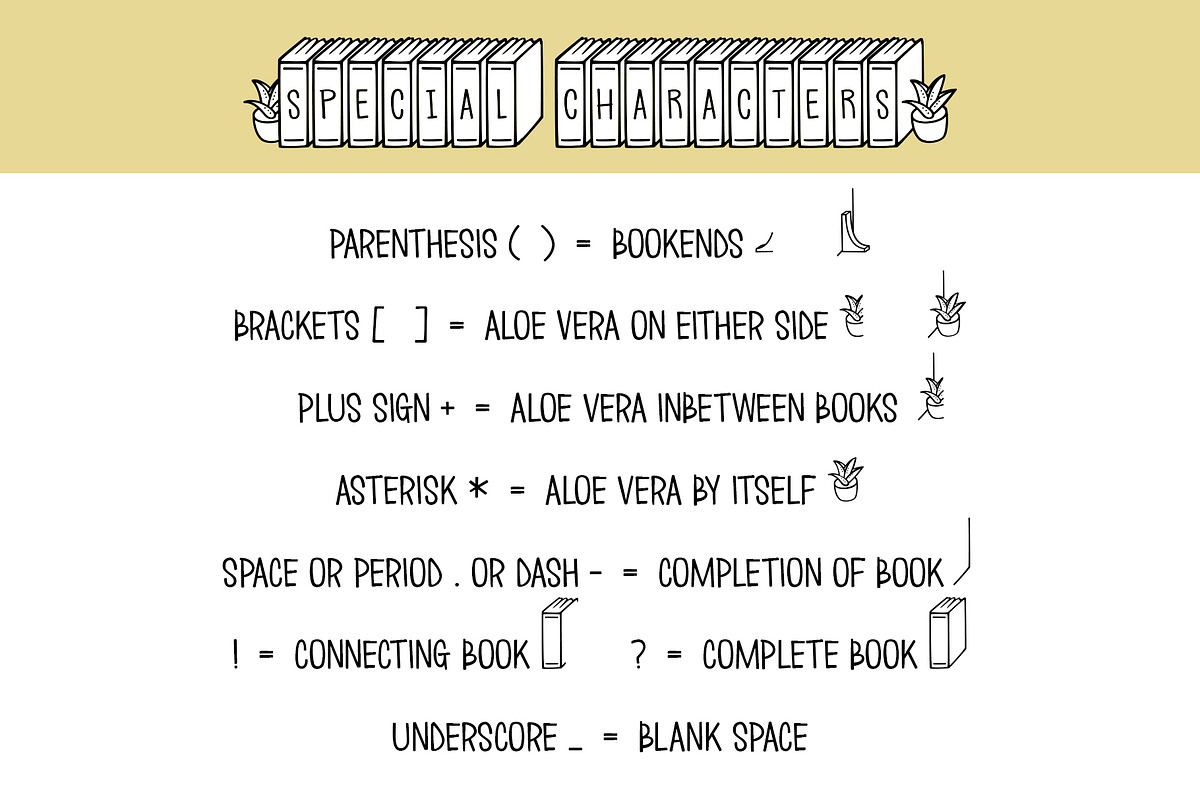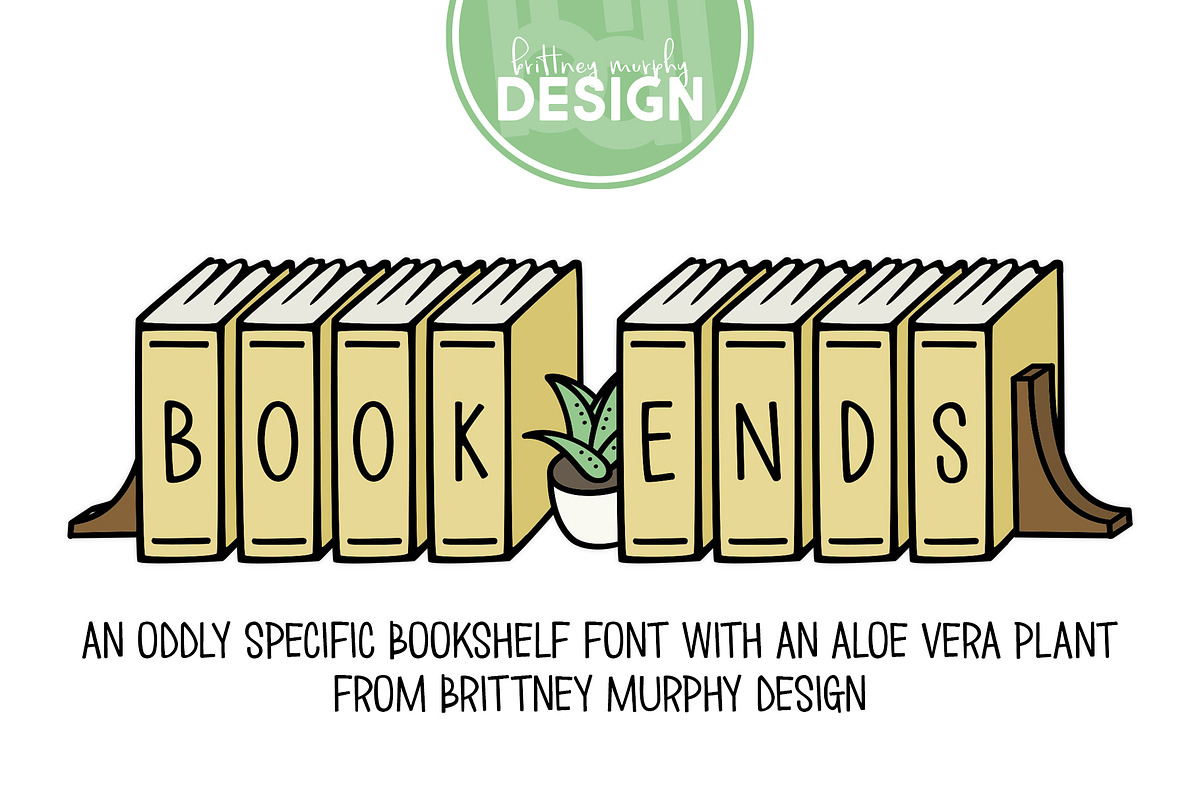
Book Ends
Book Ends is a bookshelf-style font featuring letters on book spines. Use special characters to further customize your text!
Special Characters:
- parenthesis = bookends
- brackets = aloe vera bookends
- plus sign = aloe vera between books
- space or period = book completion
- asterisk = aloe vera plant by itself
- exclamation point = empty connecting book
- question mark = empty completed book
- underscore = blank space